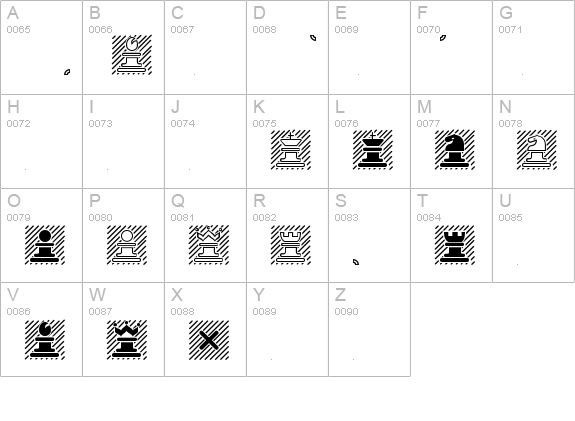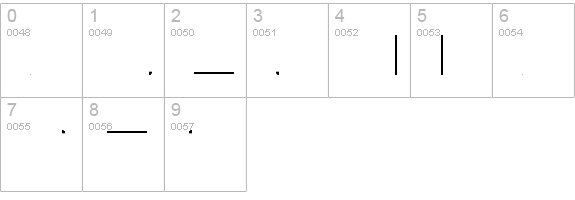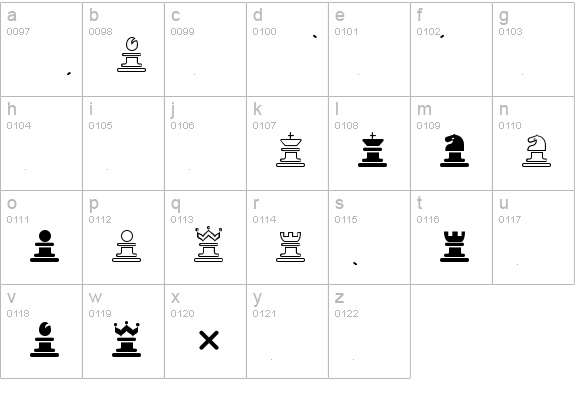
Chess Marroquin font is a unique and stylish typeface that combines classic elegance with a modern twist. Its intricate design features sharp edges and bold lines, making it perfect for a variety of design projects. Whether you're creating a sleek logo, eye-catching poster, or elegant wedding invitation, Chess Marroquin font is sure to make a statement. Best of all, Chess Marroquin font is completely free to download at FontsMarket.com. This means that you can add this stunning font to your collection without breaking the bank. Don't miss out on the opportunity to enhance your designs with the beauty and sophistication of Chess Marroquin font. Download it today and start creating stunning visuals that will impress your audience.